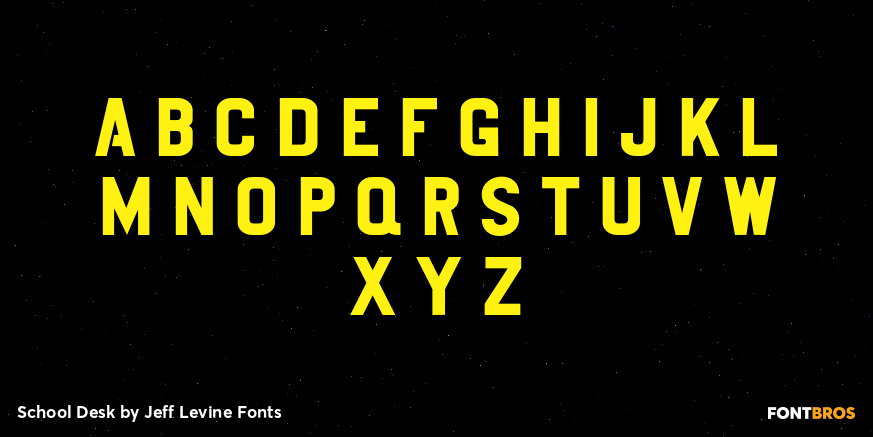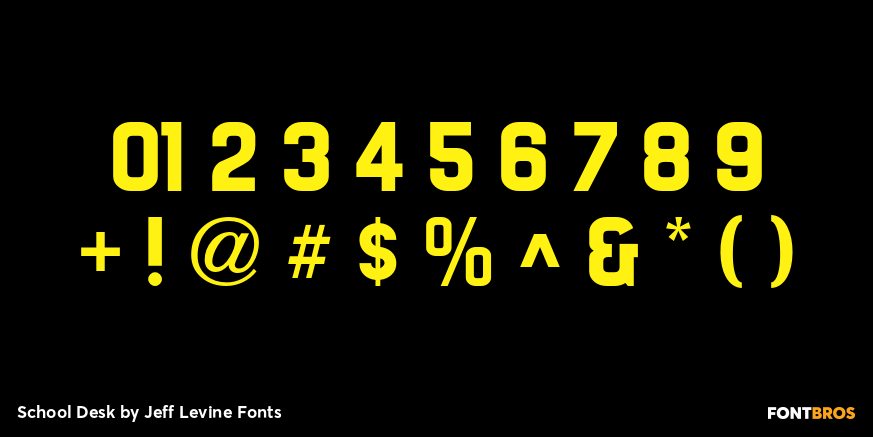
School Desk
School Desk JNL is a block-style sanserif based on die-cut cardboard letters used in classrooms during the 1940s and 1950s for making various projects and teaching children the basic shapes of letters.